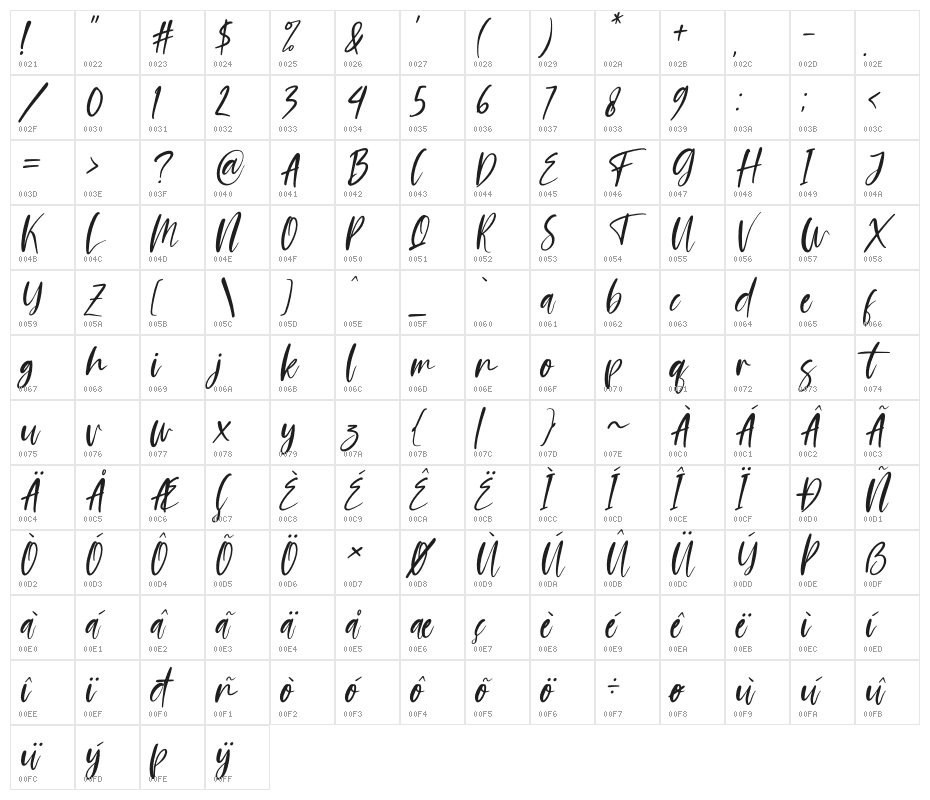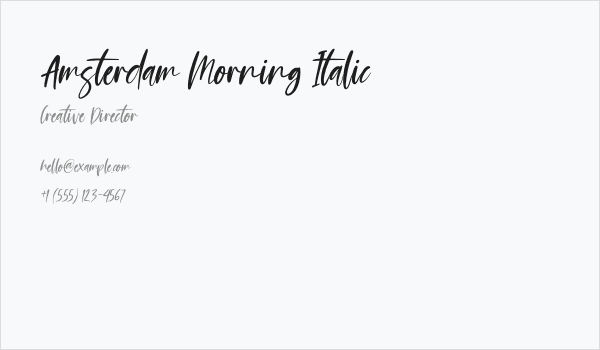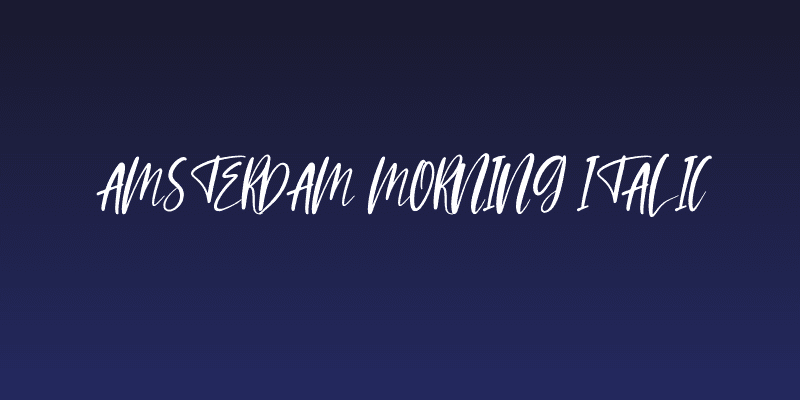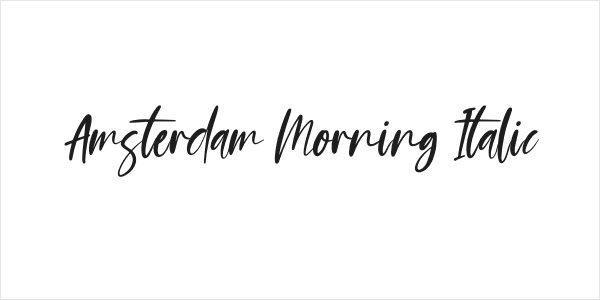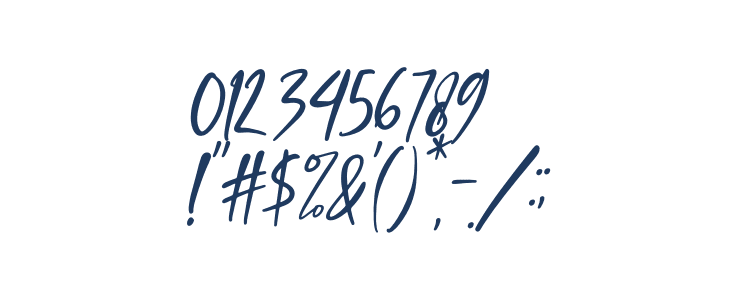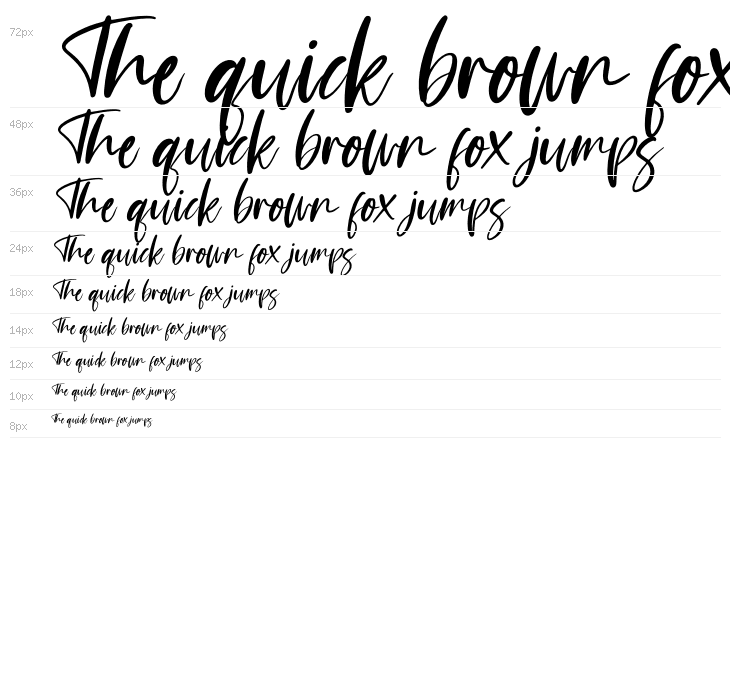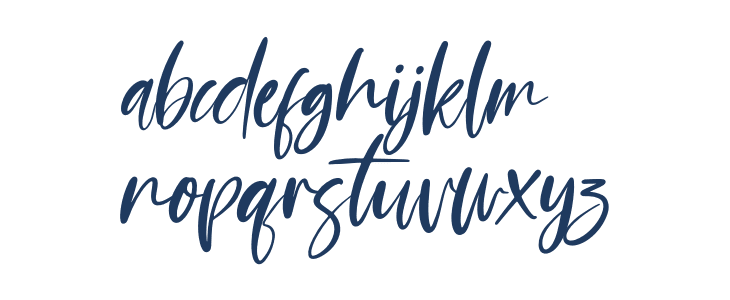
Amsterdam Morning Italic Font
Amsterdam Morning Italic Description
This font exudes a lively and dynamic energy with its fluid, cursive style. The letters are crafted with a natural, handwritten feel, characterized by sweeping curves and varying stroke widths that give it a sense of movement and personality. The uppercase letters are bold and expressive, while the lowercase letters maintain a consistent flow, enhancing readability. The numerals and special characters are designed to complement the overall aesthetic, making them suitable for a variety of creative applications. This font is perfect for projects that require a personal touch, such as invitations, greeting cards, or branding materials that aim to convey warmth and approachability.